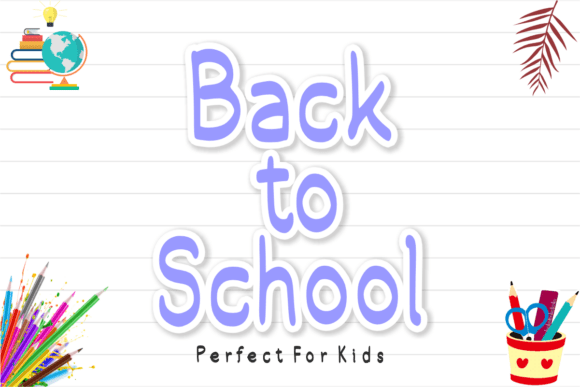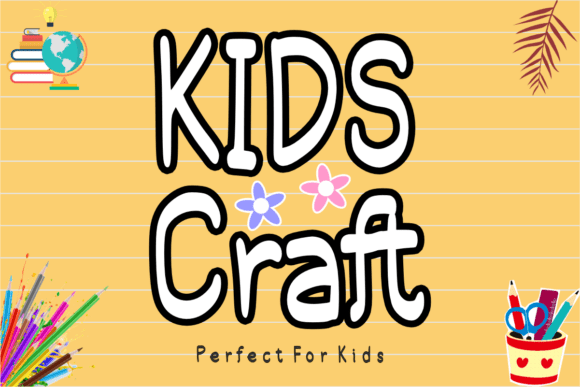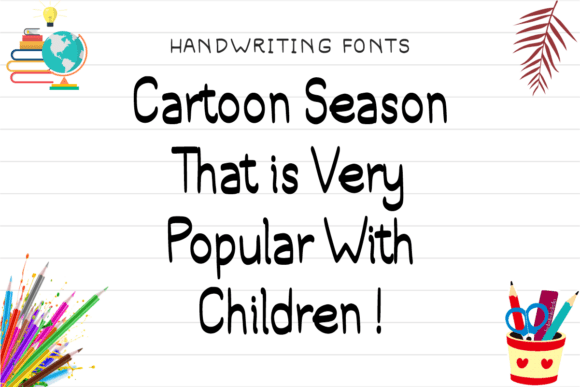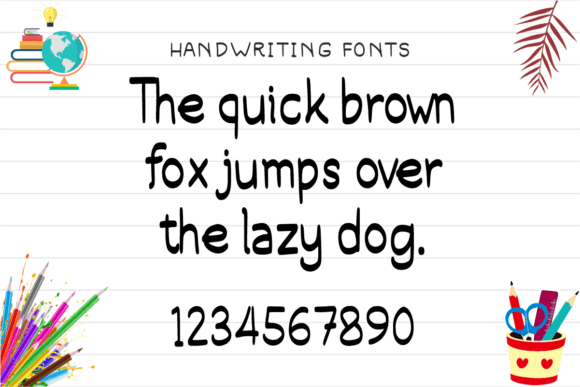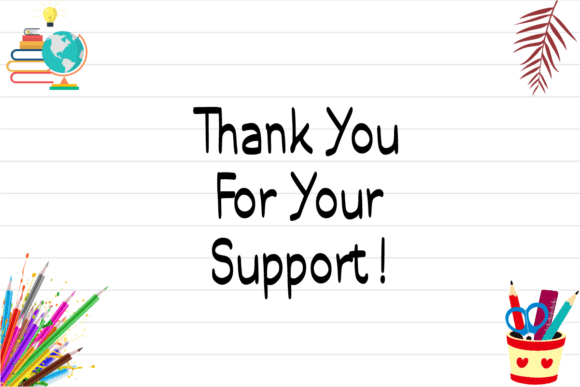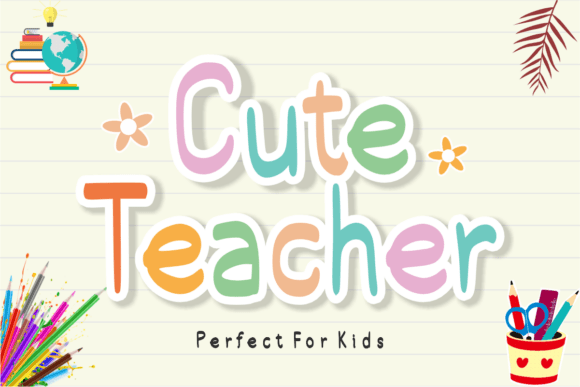
✨ Top of the Class! Meet Cute Teacher – The Ultimate School & Classroom Font! ✨
Are you a teacher, parent, or creator looking for a font that can add a touch of warmth and personality to your educational designs? Look no further than Cute Teacher, the ultimate school and classroom font! This charming and highly legible display font features a friendly, hand-drawn aesthetic that captures the essence of a classroom, making it the perfect choice for inspiring students and elevating your educational materials.
The Perfect “A+ Choice” for Educators
Cute Teacher is designed to make learning fun and stylish. Its thick, bold strokes make it ideal for high-readability titles on posters, book covers, and creative school materials. Whether you’re a teacher creating educational resources, a parent making fun learning materials for your kids, or a creator designing engaging content for students, Cute Teacher is the perfect font for you.
What Makes Cute Teacher So Special?
- Hand-drawn aesthetic: Cute Teacher features a friendly, hand-drawn design that adds a touch of warmth and personality to your educational materials.
- Highly legible: The font’s thick, bold strokes make it easy to read, even from a distance, making it perfect for posters, book covers, and other display materials.
- Versatile: Cute Teacher is suitable for a wide range of educational materials, from classroom posters and book covers to worksheets and activity sheets.
- Fun and engaging: The font’s playful design is sure to capture the attention of your students and make learning fun!
Uses for Cute Teacher
Cute Teacher is perfect for a wide range of educational applications, including:
- Classroom posters: Create eye-catching posters that showcase important information, such as classroom rules, schedules, or inspirational quotes.
- Book covers: Design engaging book covers that will make your students want to pick up the book and start reading.
- Worksheets and activity sheets: Add a touch of fun and personality to your worksheets and activity sheets, making learning more enjoyable for your students.
- Educational resources: Create educational resources, such as flashcards, charts, and graphs, that are both informative and visually appealing.
Why Choose Cute Teacher?
With so many fonts to choose from, why should you choose Cute Teacher? Here are just a few reasons:
- Unique design: Cute Teacher features a unique and charming design that will set your educational materials apart from the rest.
- Easy to read: The font’s thick, bold strokes make it easy to read, even for younger students.
- Time-saving: With Cute Teacher, you can create engaging educational materials quickly and easily, saving you time and effort.
Get Ready to Inspire Your Students!